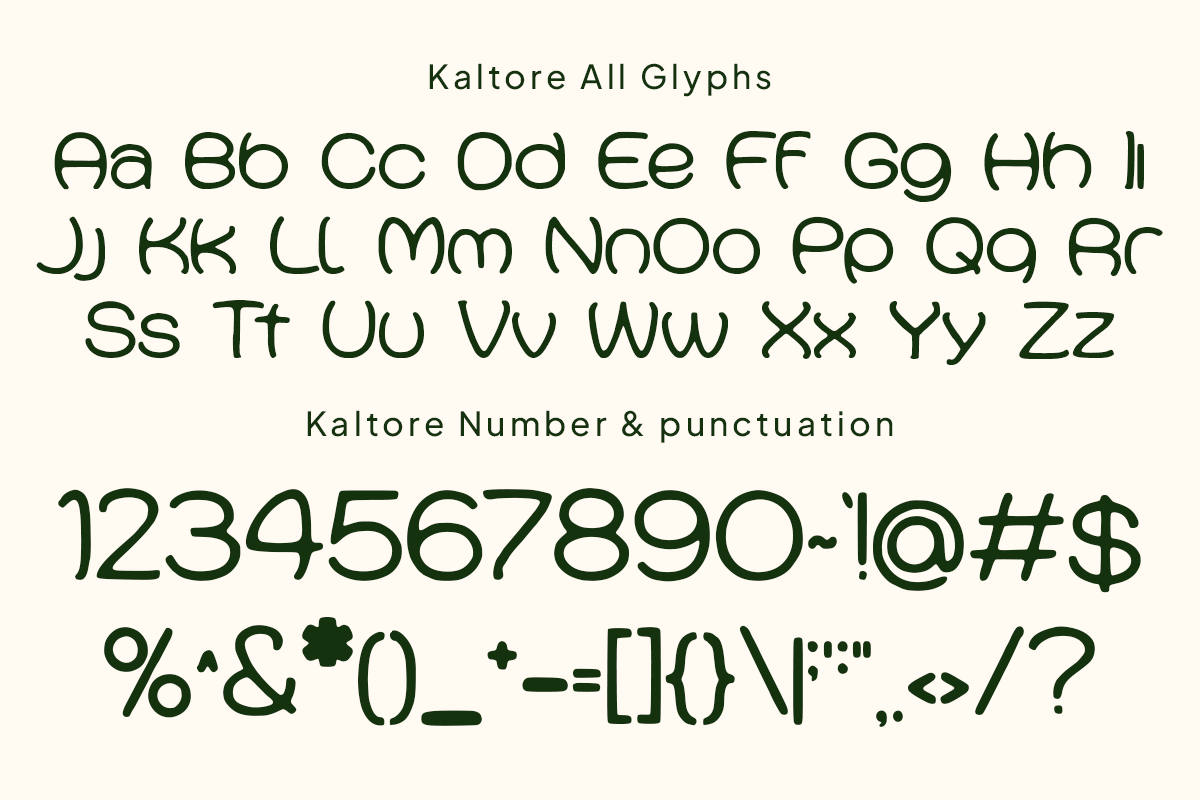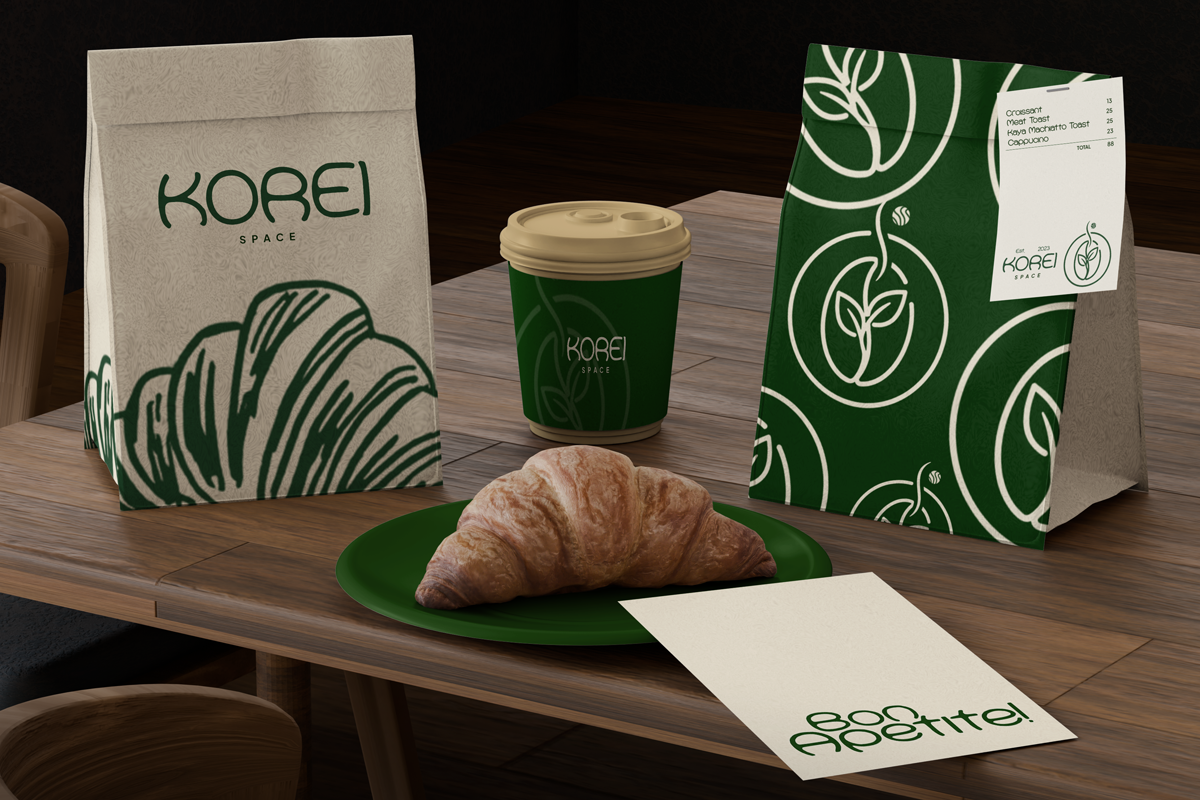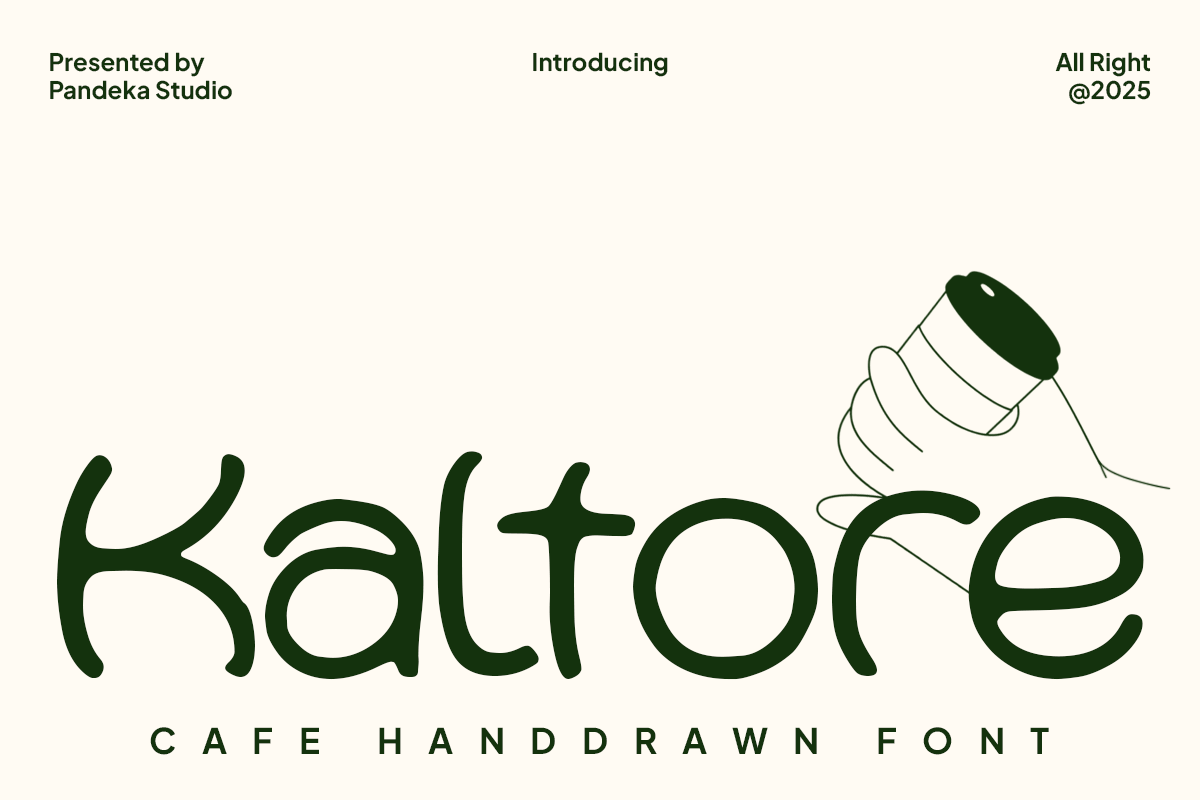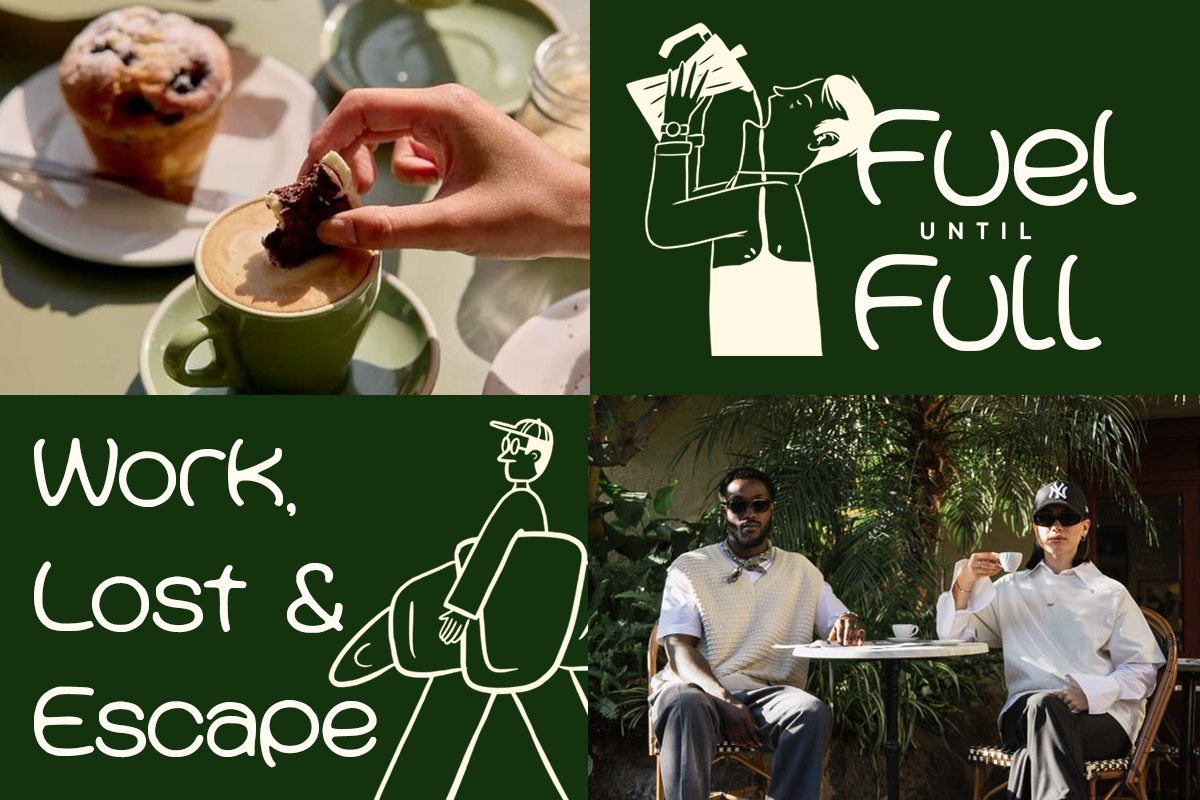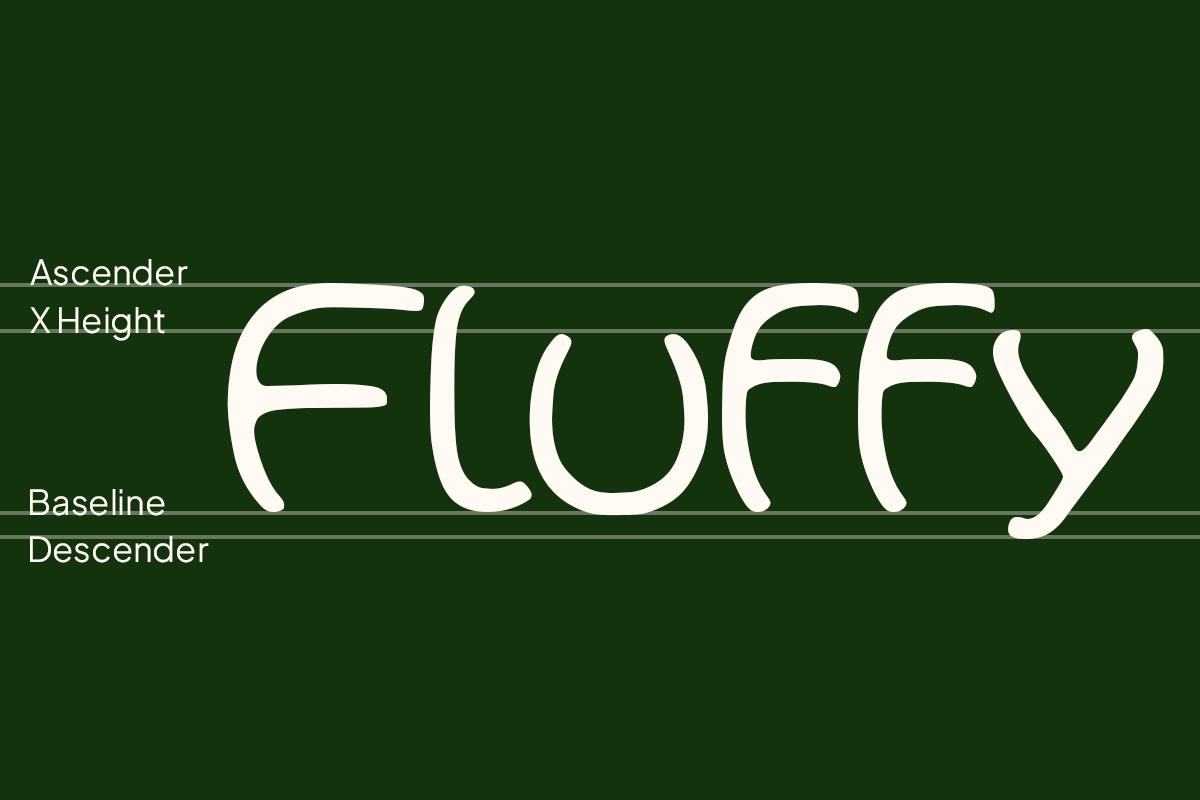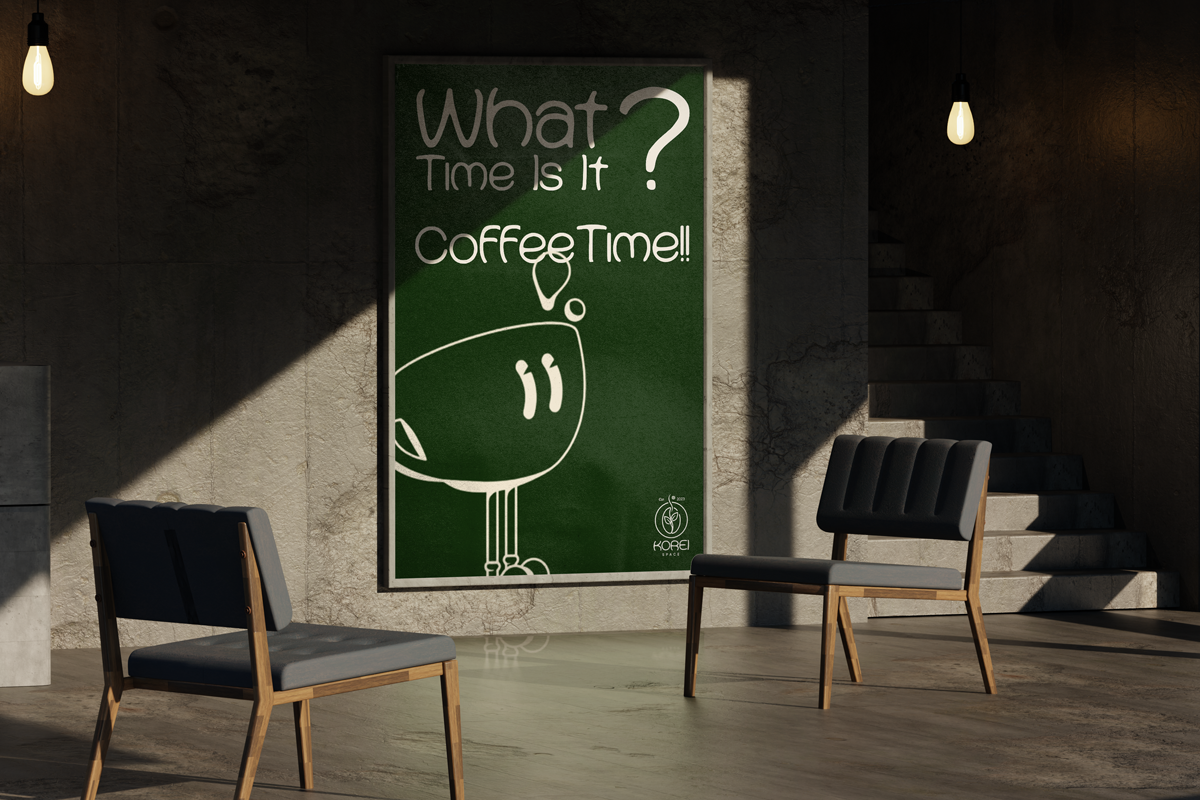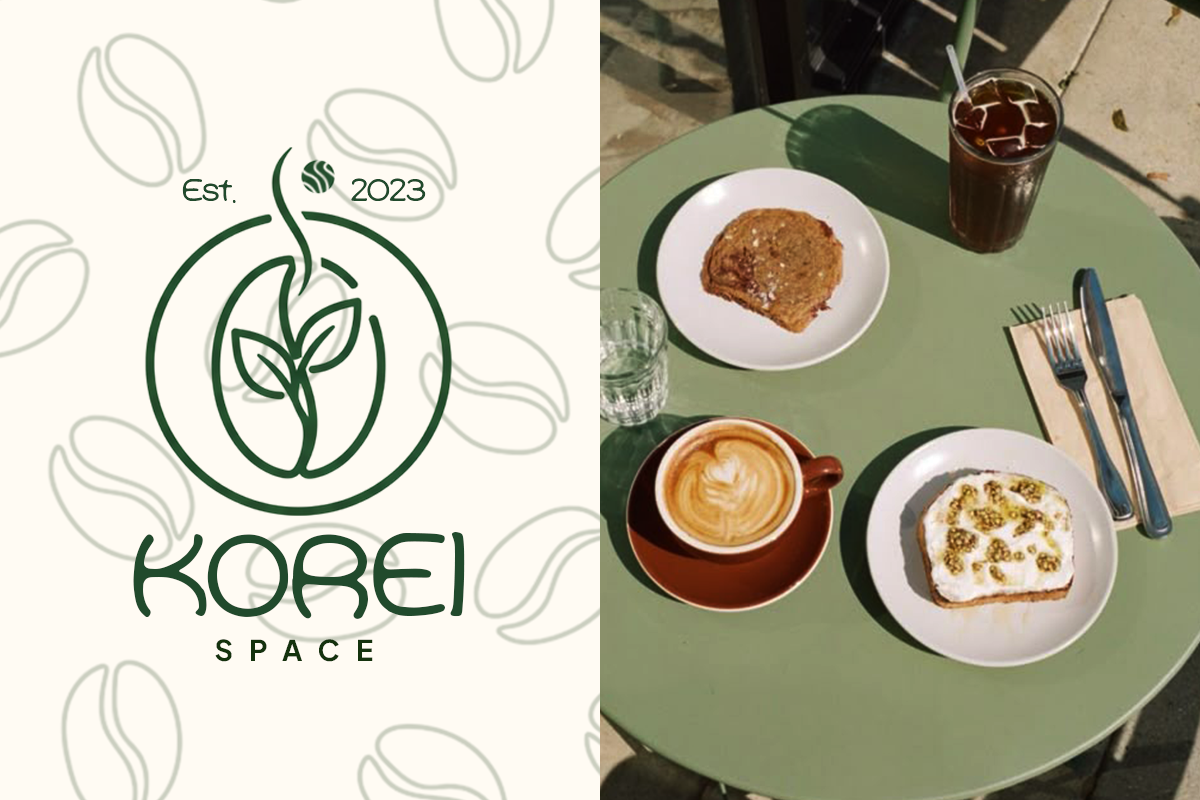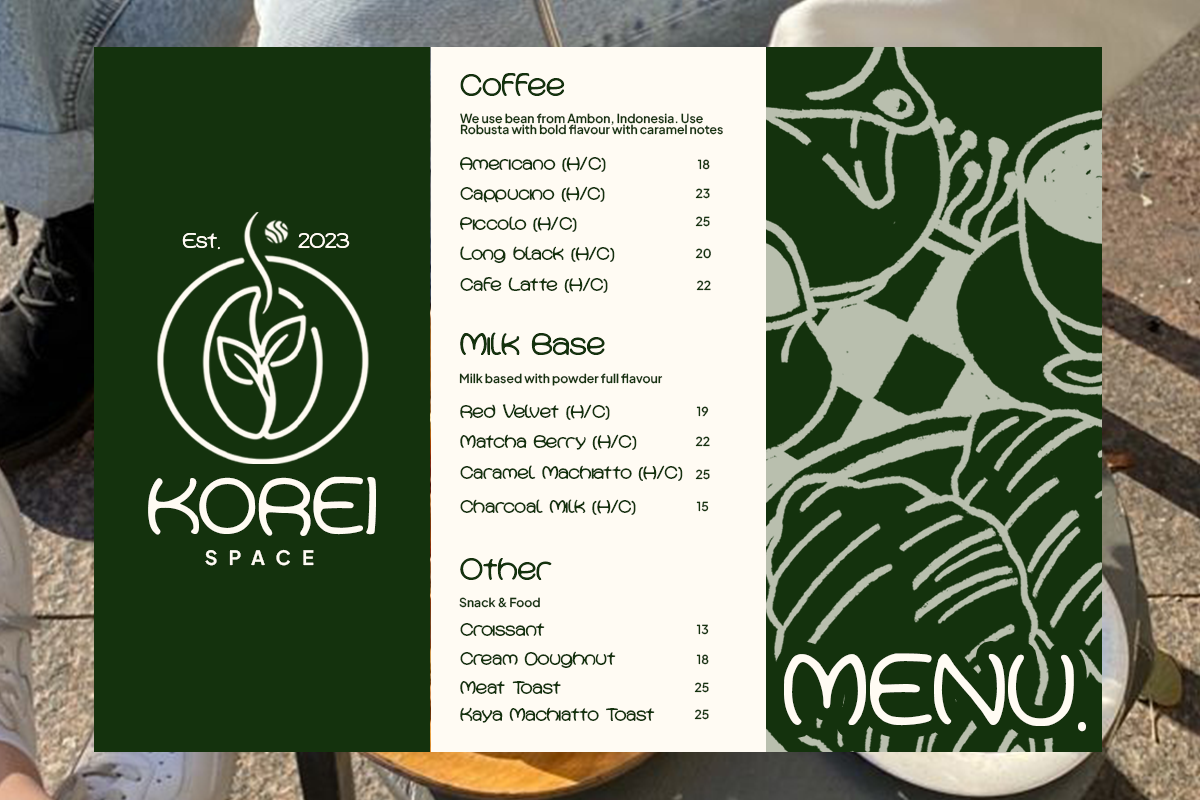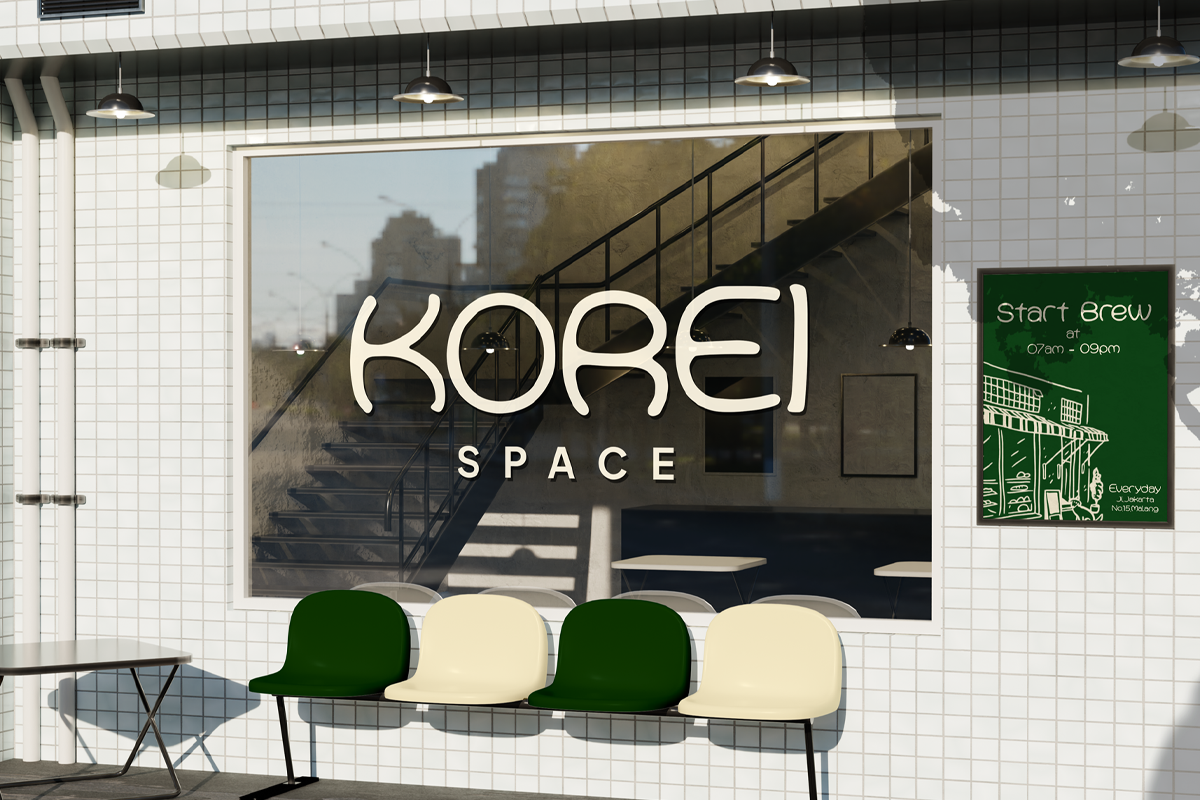
Kaltore - Cafe Handdrawn Font
Kaltore is a warm and organic hand-drawn font crafted specially for cafes, coffee brands, eco-themed products, and friendly handcrafted design projects. Its smooth lines and playful handwritten character give every layout a cozy, welcoming personality — perfect for menus, packaging, stickers, signage, social media posts, and lifestyle branding.
Designed in a single Regular style, Kaltore includes uppercase, lowercase, numerals, punctuation, and alternates that enhance its natural flow. Whether used for cafe identities or artisanal product labels, Kaltore brings a charming, casual, and inviting touch to your typography.